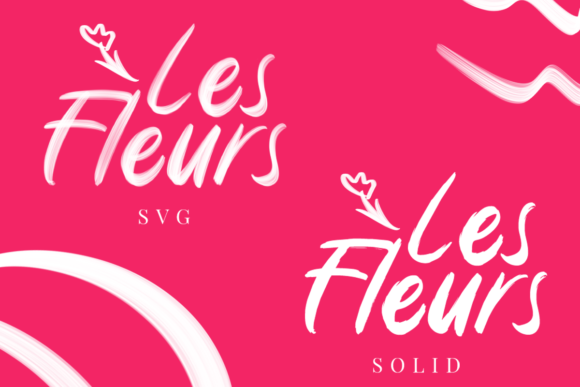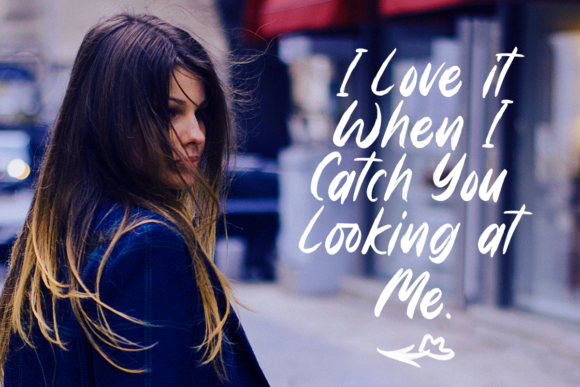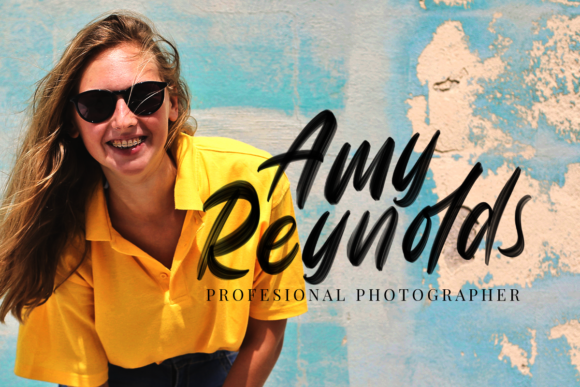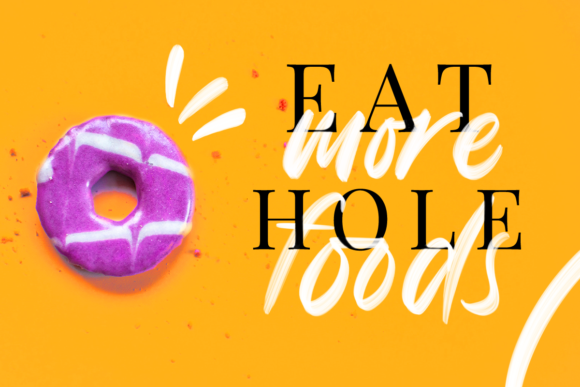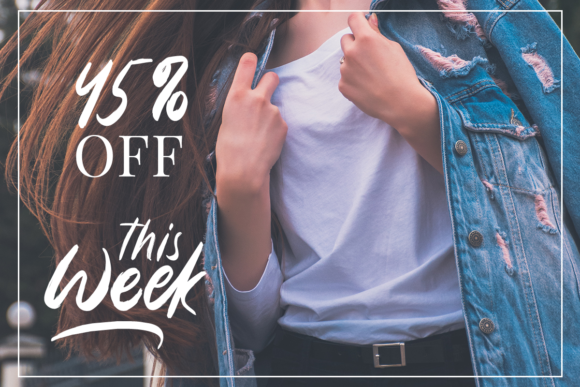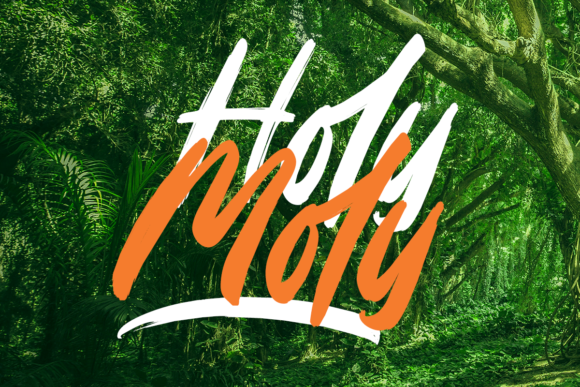
Introduction to Romain Font
Have you ever been working on a creative project, pouring your heart and soul into every detail, only to feel like something’s missing? You know that spark that makes your design stand out from the crowd? That’s exactly what we’re about to explore with the enchanting Romain Font.
This gorgeous handwritten font is more than just a design resource – it’s a game-changer. With its light and playful touch, Romain Font brings a touch of romance to any project, making it perfect for designers looking to add a unique twist to their work. Whether you’re working on a branding project, creating a beautiful wedding invitation, or simply want to add some personality to your social media graphics, Romain Font is the perfect companion.
Key Features of Romain Font
- High-quality, professional font suitable for creative projects, with a transparent background for easy layering.
- Designed with a classic, elegant aesthetic, perfect for use in logos, typography, and branding materials.
Honest Review: Romain Font
As a designer, I’m always on the lookout for high-quality design resources that can elevate my creative projects. Recently, I stumbled upon the Romain Font, and I’m excited to share my honest review with you.
- ✨ High-quality font with a clean and elegant design
- ✨ Supports a wide range of languages, making it perfect for international projects
- ✨ Transparent background, allowing for seamless integration with any design element
- ⚠️ Limited customization options, which may not appeal to designers who like to fine-tune their fonts
- ⚠️ Not ideal for use in small text sizes, as it may become difficult to read
Overall, I’m impressed with the Romain Font. Its high-quality design and wide language support make it a valuable addition to any designer’s toolkit. While it may have some limitations, I believe it’s a great choice for designers working on creative projects that require a clean and elegant font.
Tips for Getting the Most Out of Romain Font
For a high-quality design, use Romain Font in conjunction with a transparent background to create a clean and professional look. You can also experiment with different font sizes and styles to add visual interest to your project.
Romain Font is a versatile design resource that can be used in a variety of creative projects, including business cards, brochures, and social media graphics. Its high-quality design makes it an ideal choice for any project that requires a professional and polished look.